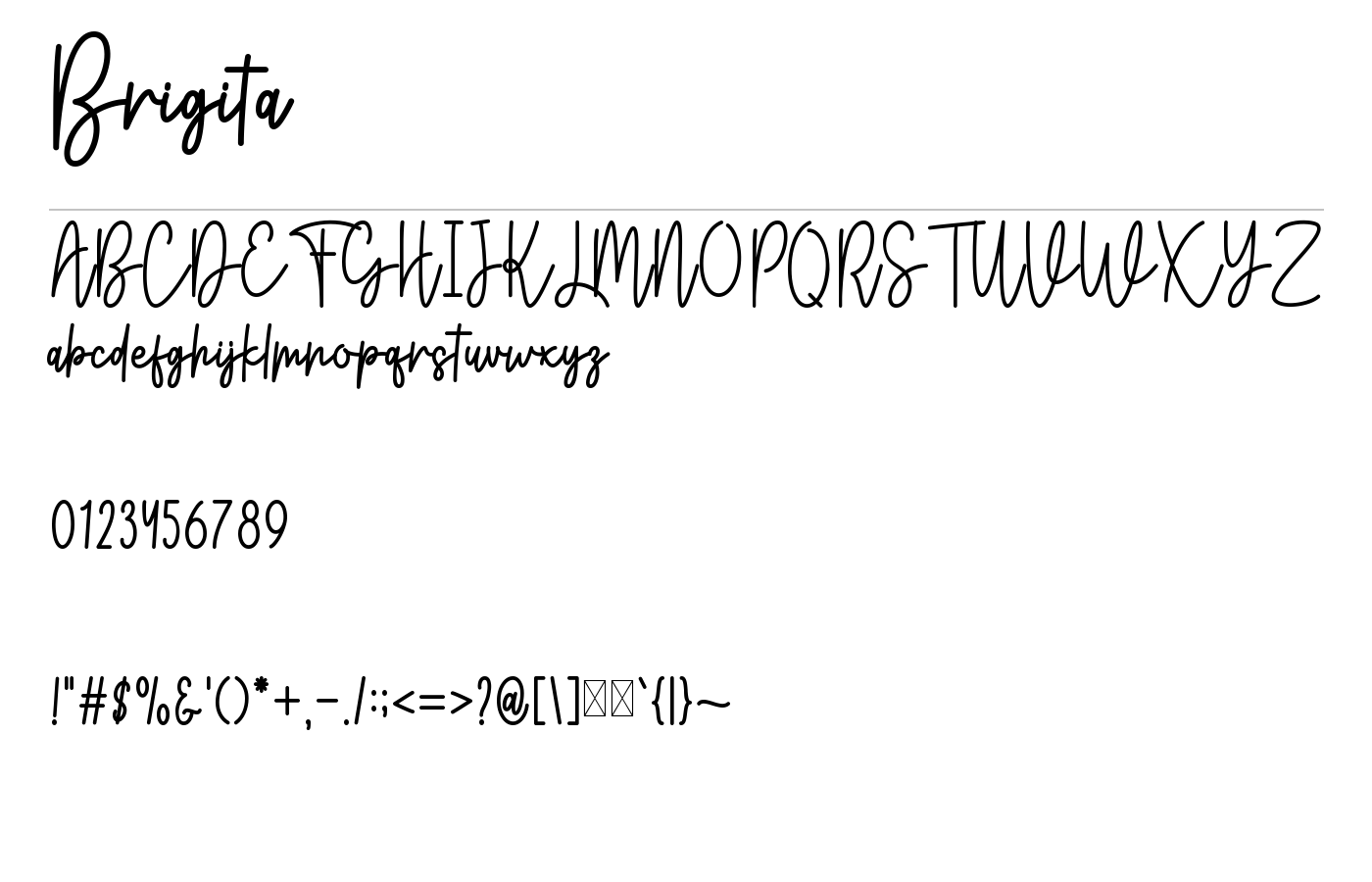
Brigita is a playful and elegant handwritten script font characterized by its tall, slender letterforms and smooth, flowing strokes. Its casual yet refined style makes it perfect for creative branding, invitations, and feminine designs that seek a personal and approachable touch. This font works well in logos, headings, and stylish editorial projects where a warm, friendly personality is desired.
Brigita Font
About Brigita Font
| Designer | Wahyu Setiyawan |